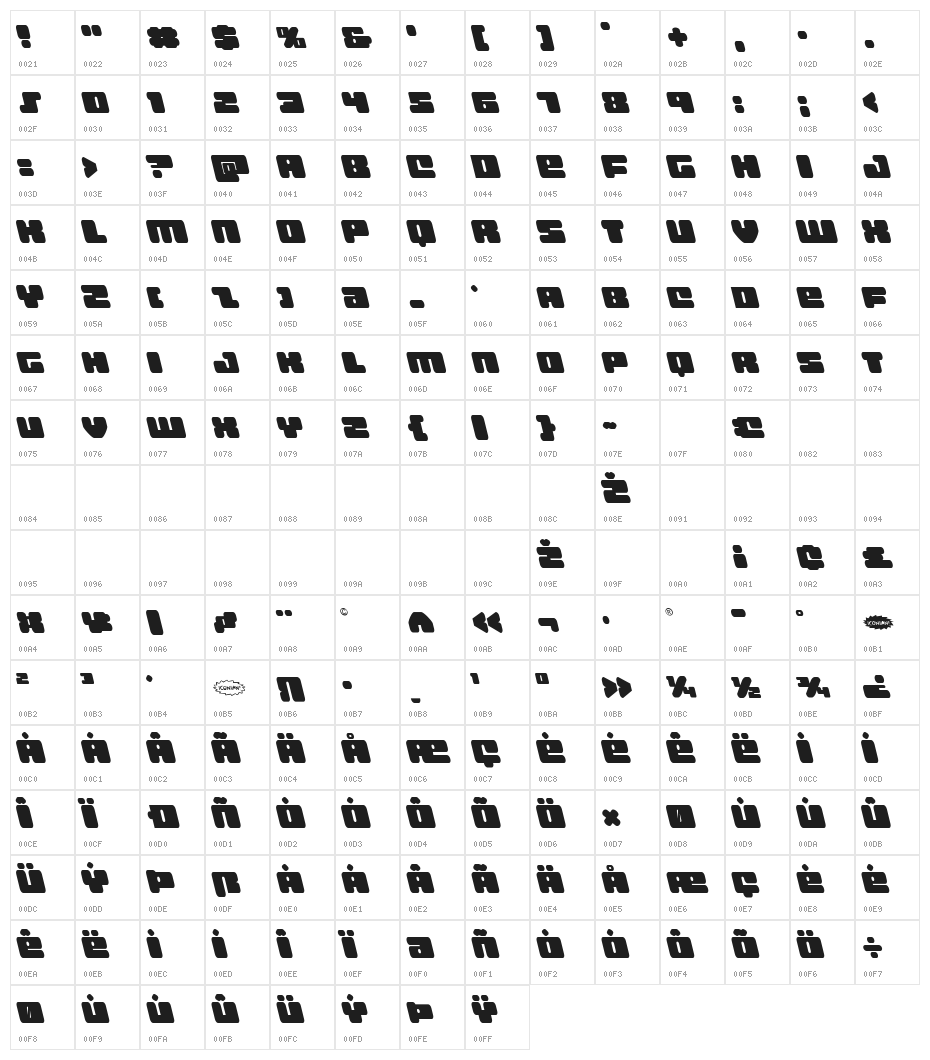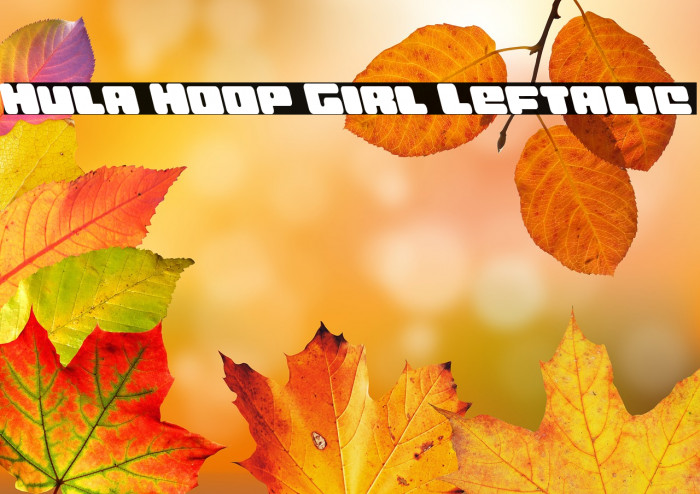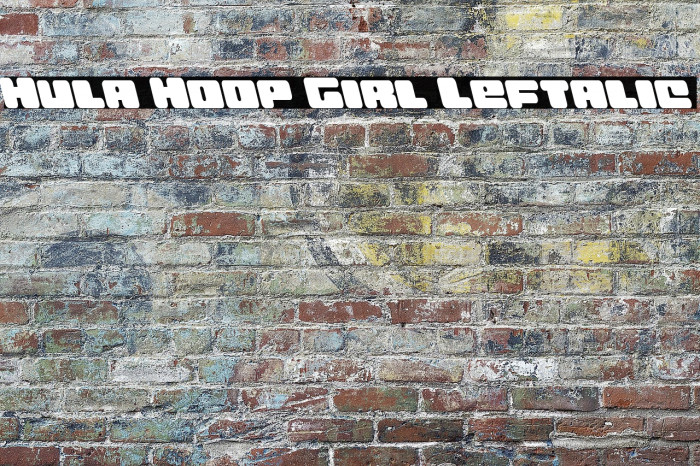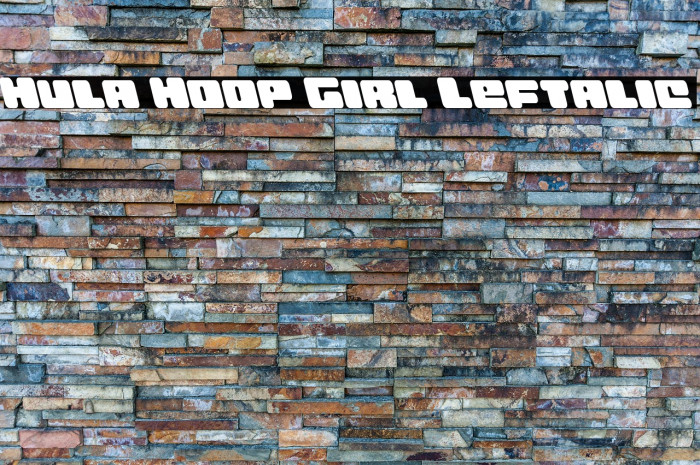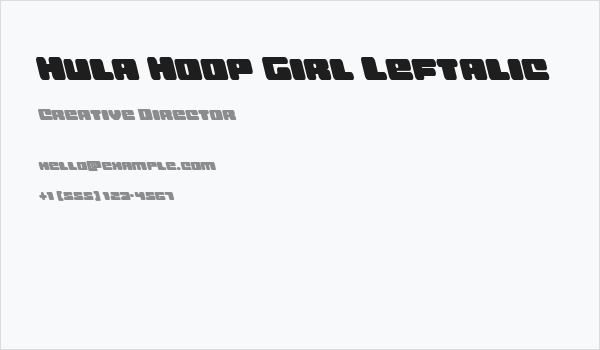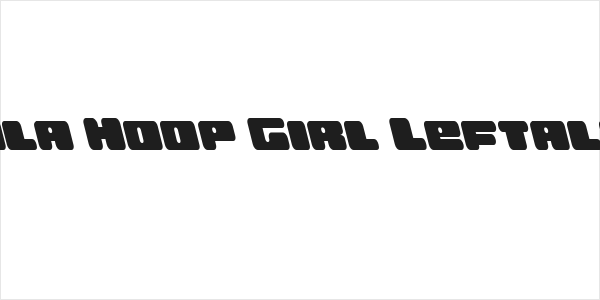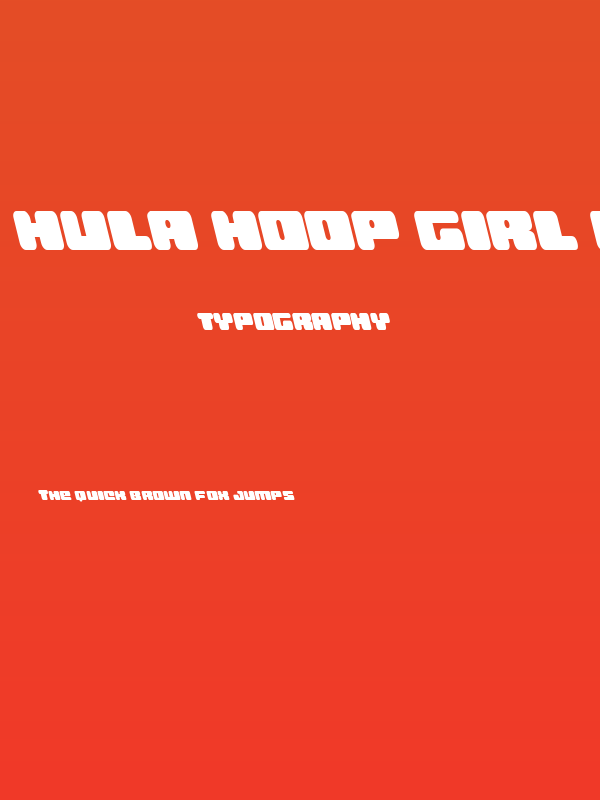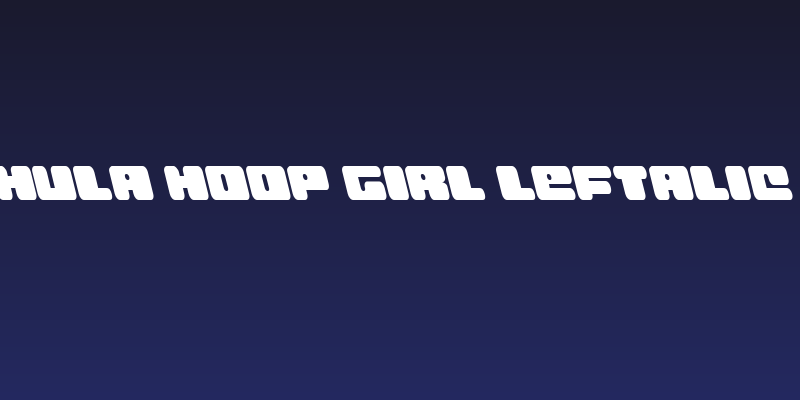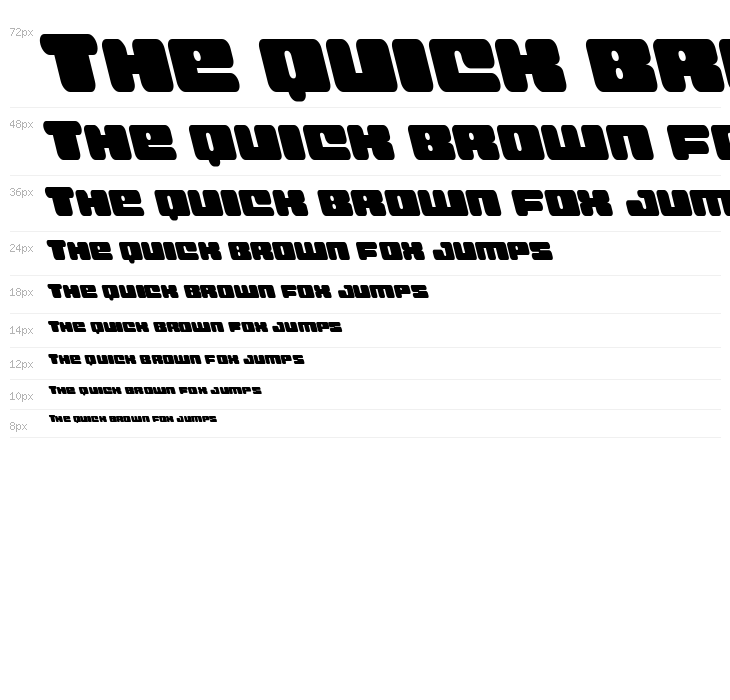
Hula Hoop Girl Leftalic Font
Hula Hoop Girl Leftalic Description
This font features a bold and playful design with a distinctly chunky and rounded appearance. The characters are uniformly thick, creating a strong visual impact. The style is reminiscent of retro or vintage aesthetics, with a modern twist that makes it suitable for contemporary designs. The letters are slightly condensed, enhancing the compact and robust feel of the typeface. The overall look is both fun and assertive, making it ideal for attention-grabbing headlines or creative projects. The special characters maintain the same boldness, ensuring consistency across all elements.
| Overall Style | Retro, Modern |
| Proposed Projects | Great for posters, logos, branding, and any project needing a bold, playful touch. |